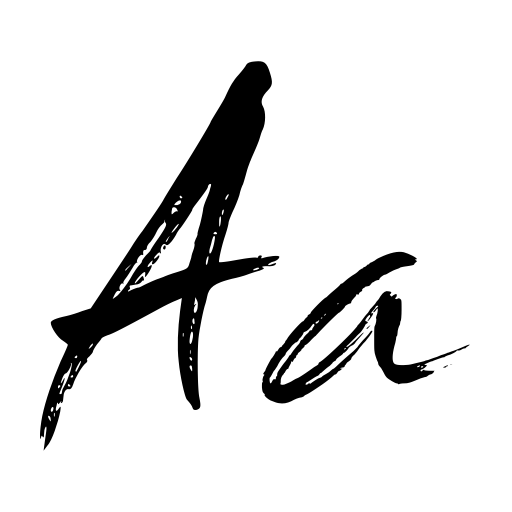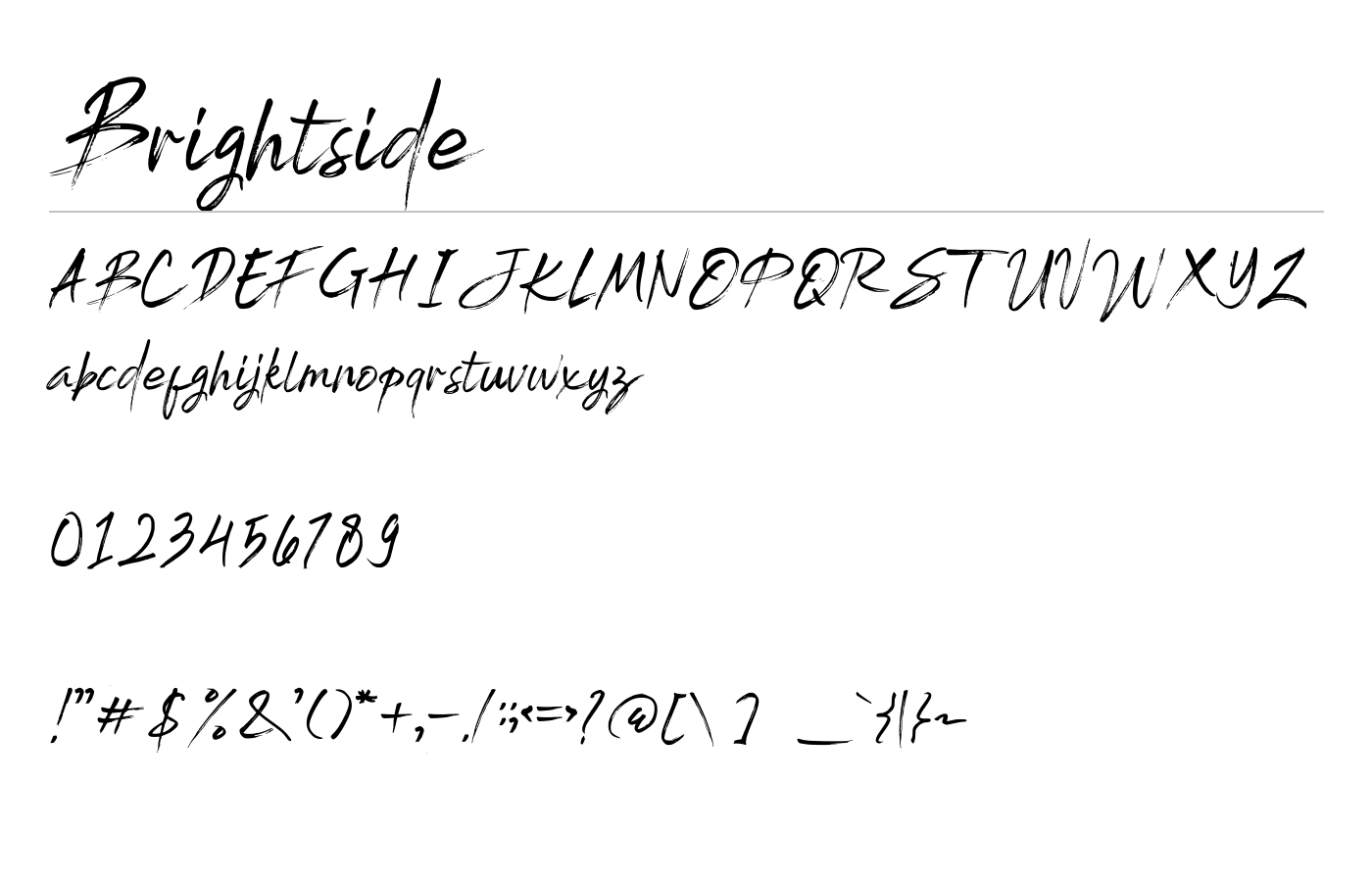
Brightside is a lively, brush-style script font that captures a natural, handwritten feel with its textured, slightly rough strokes and fluid letterforms. Its tall, narrow shapes and casual elegance make it perfect for creative branding, invitations, and expressive headlines that need a personal, artistic touch. This font’s dynamic style adds energy and charm to designs while remaining legible and stylish.
Brightside Font
About Brightside Font
| Font family | Brightside Font |
| Designer | MJB Letters 2019 |